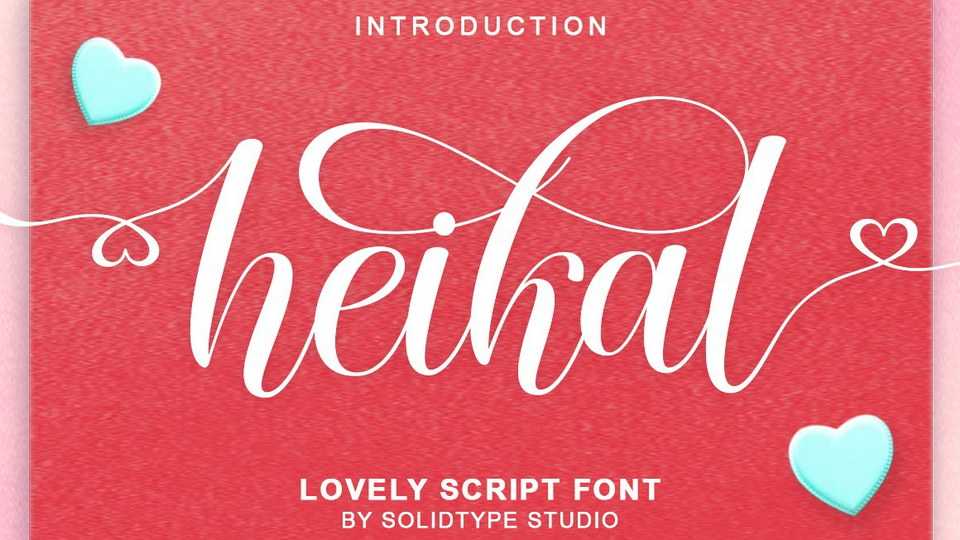
Download Heikal Script font, a beautiful light handwritten typeface with a unique feel and a stunning impact. Heikal will add a luxury spark to any design project that you wish to create
Designer: Solidtype